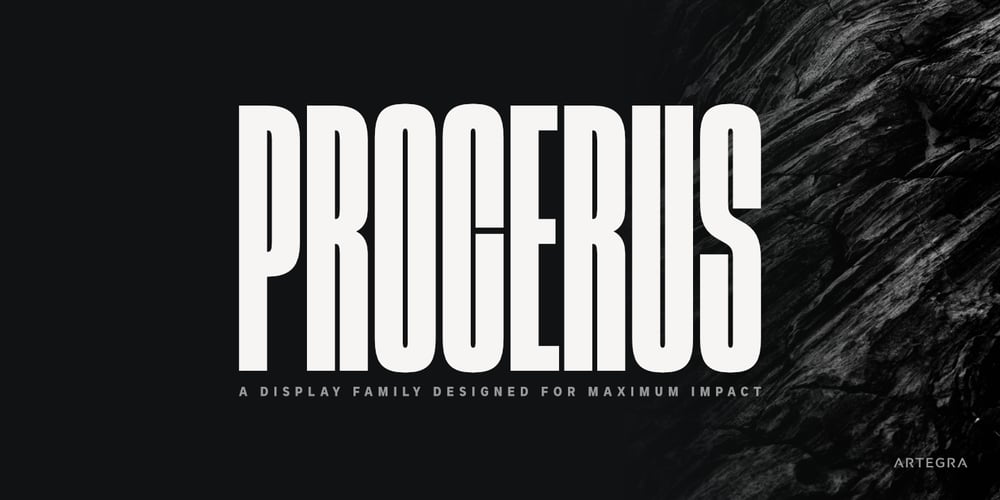
Procerus
Procerus font
Procerus Font Family was designed by Ceyhun Birinci and published by Artegra. Procerus contains 18 styles and family package options. Procerus was designed to achieve maximum impact on a narrow ground with ultra compressed letterforms. The idea was to explore the beauty in perfectly integrated straight shapes to maximize the use of space while keeping the empty space to a minimum. The result was a stunning display family that makes the type interesting, engaging while still being readable.